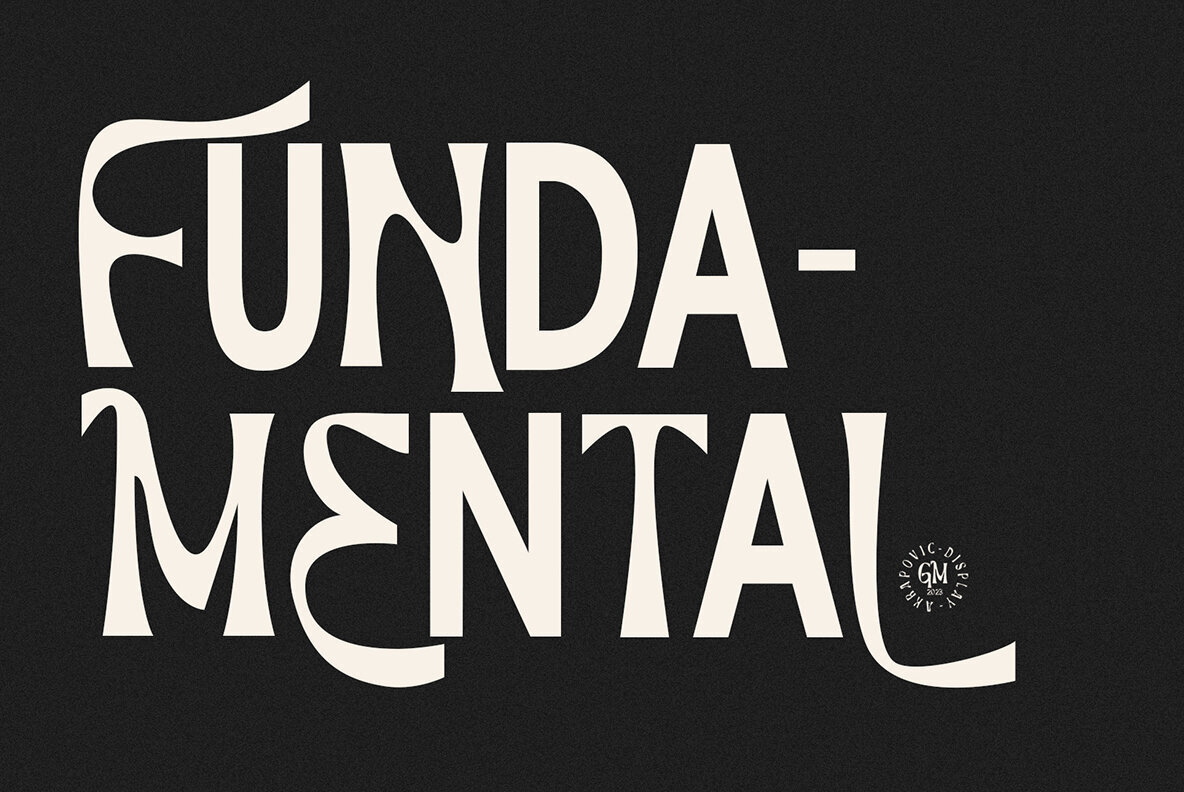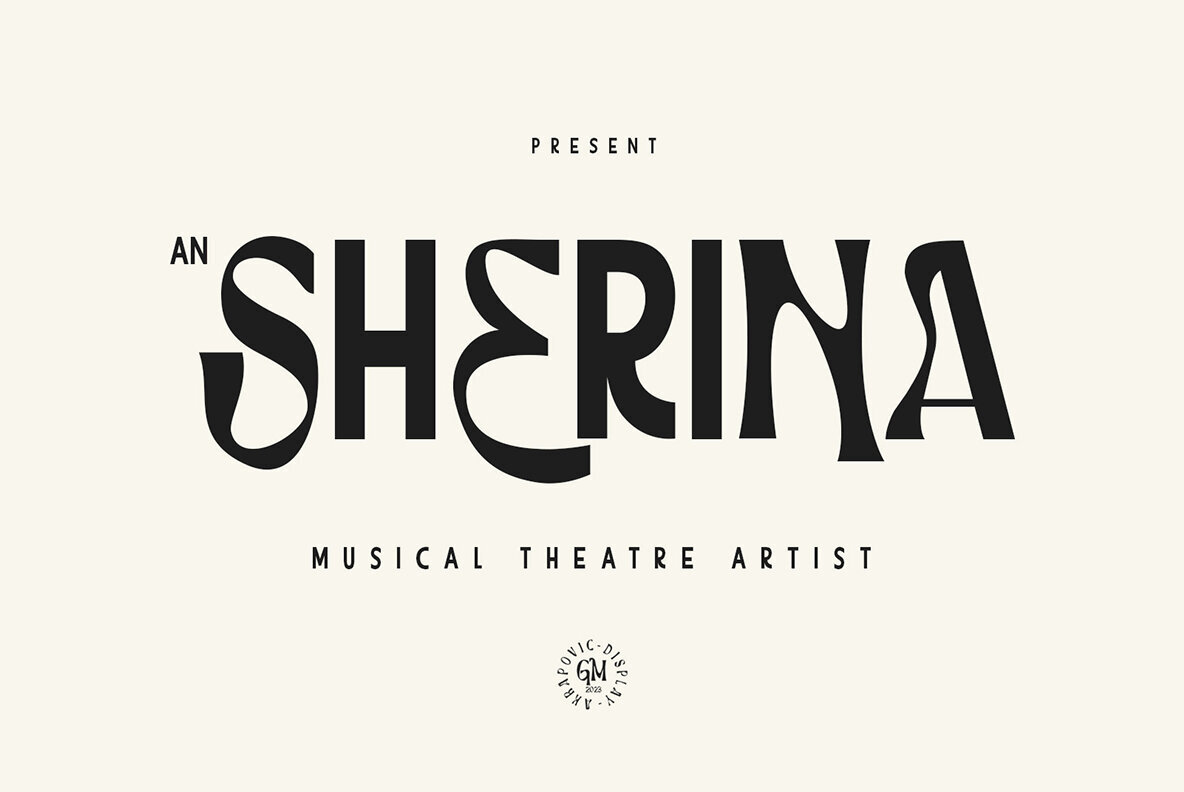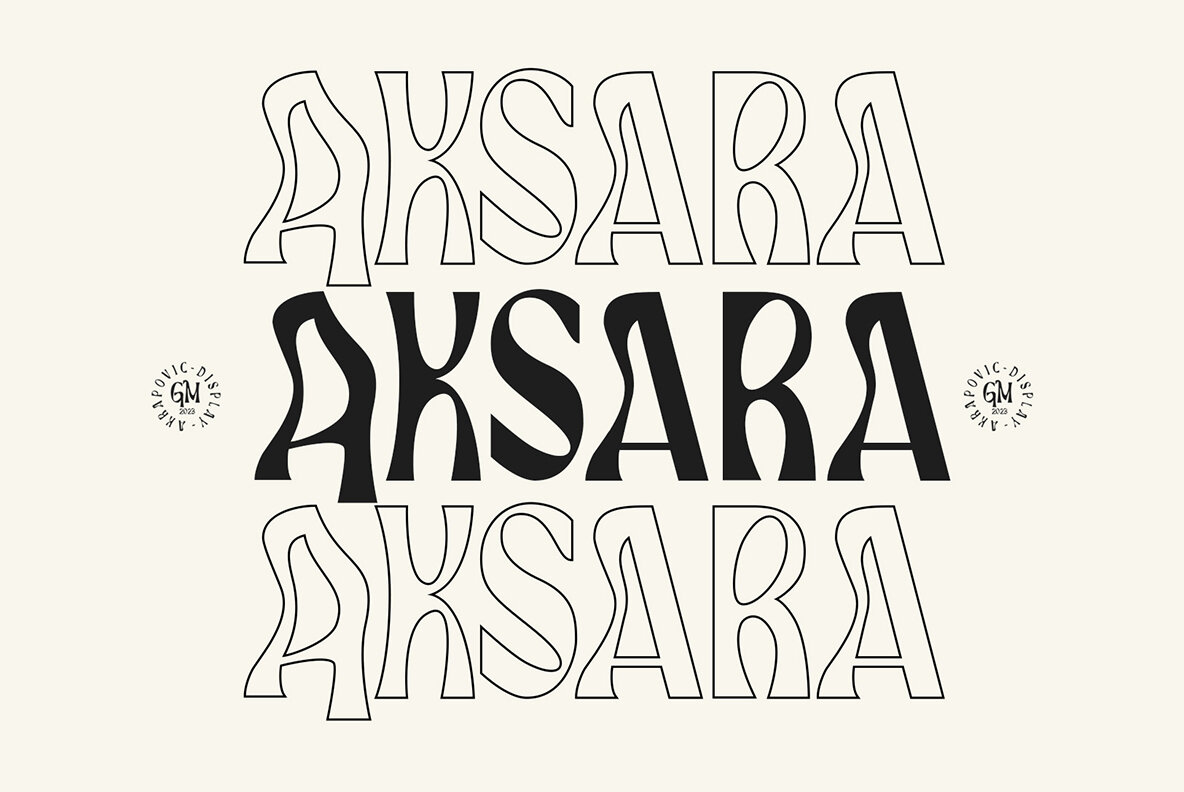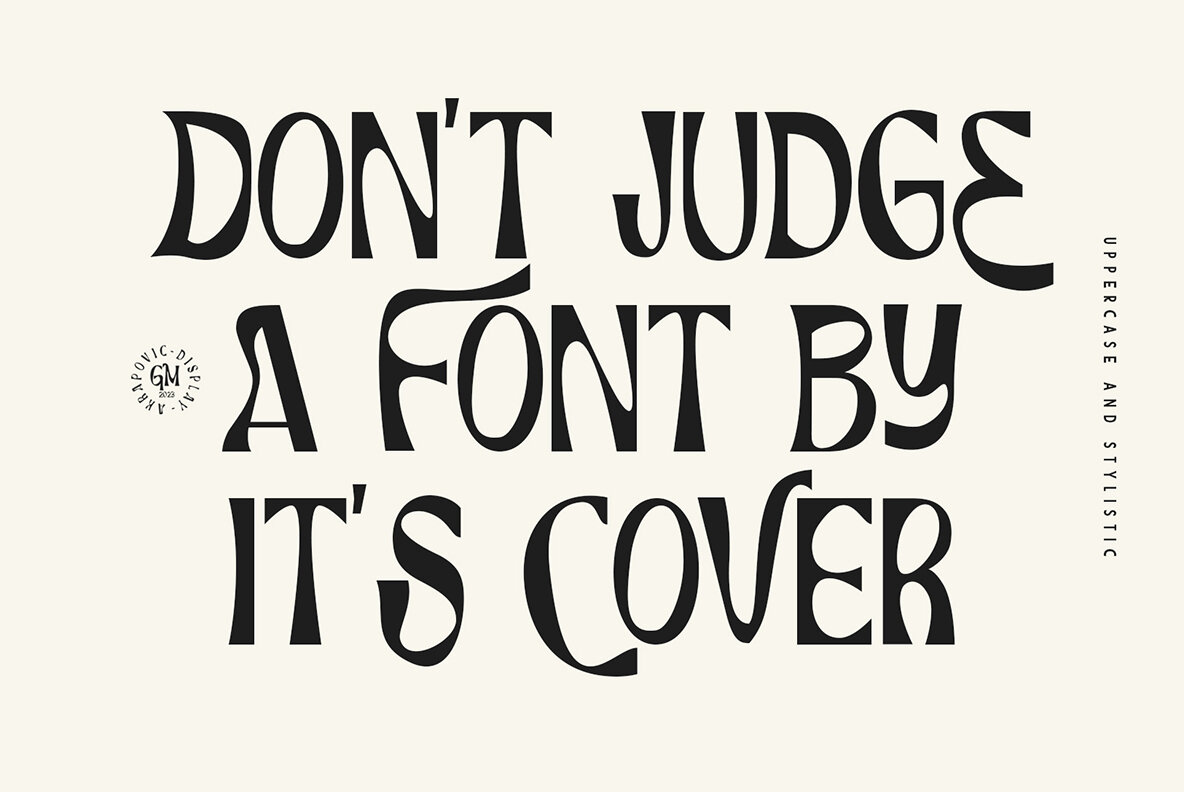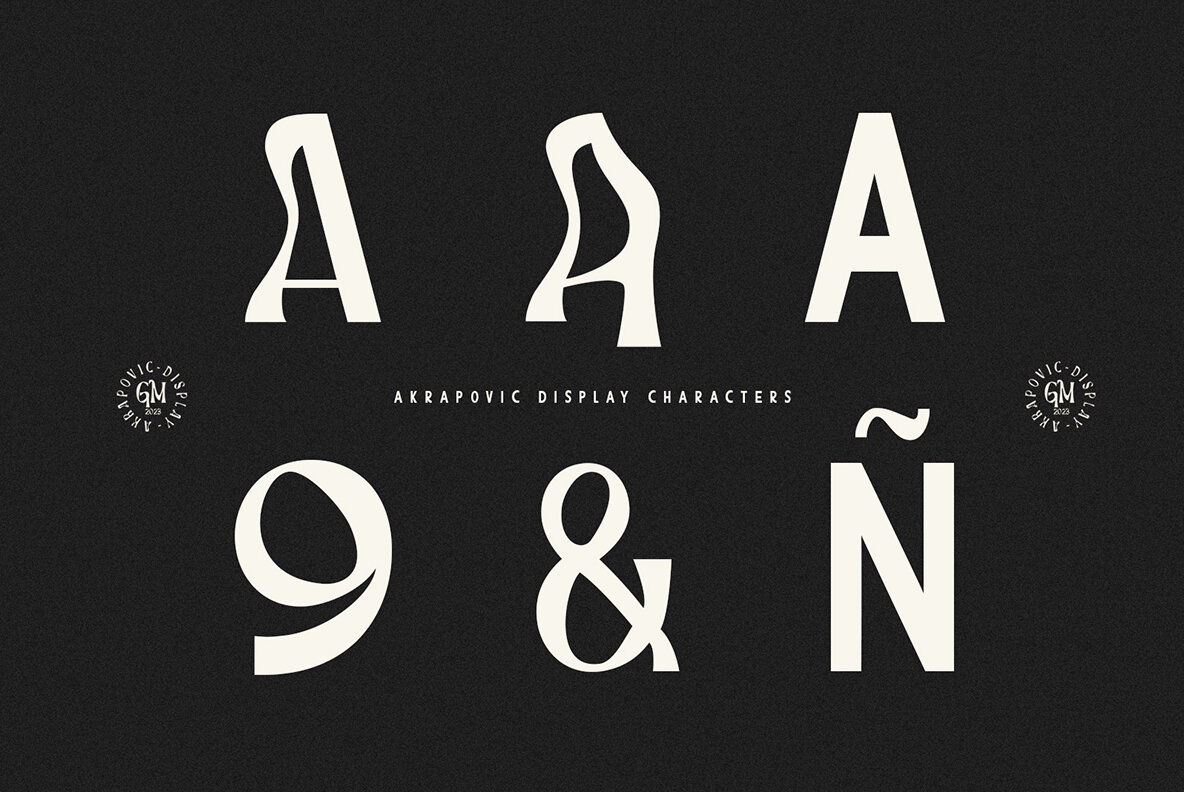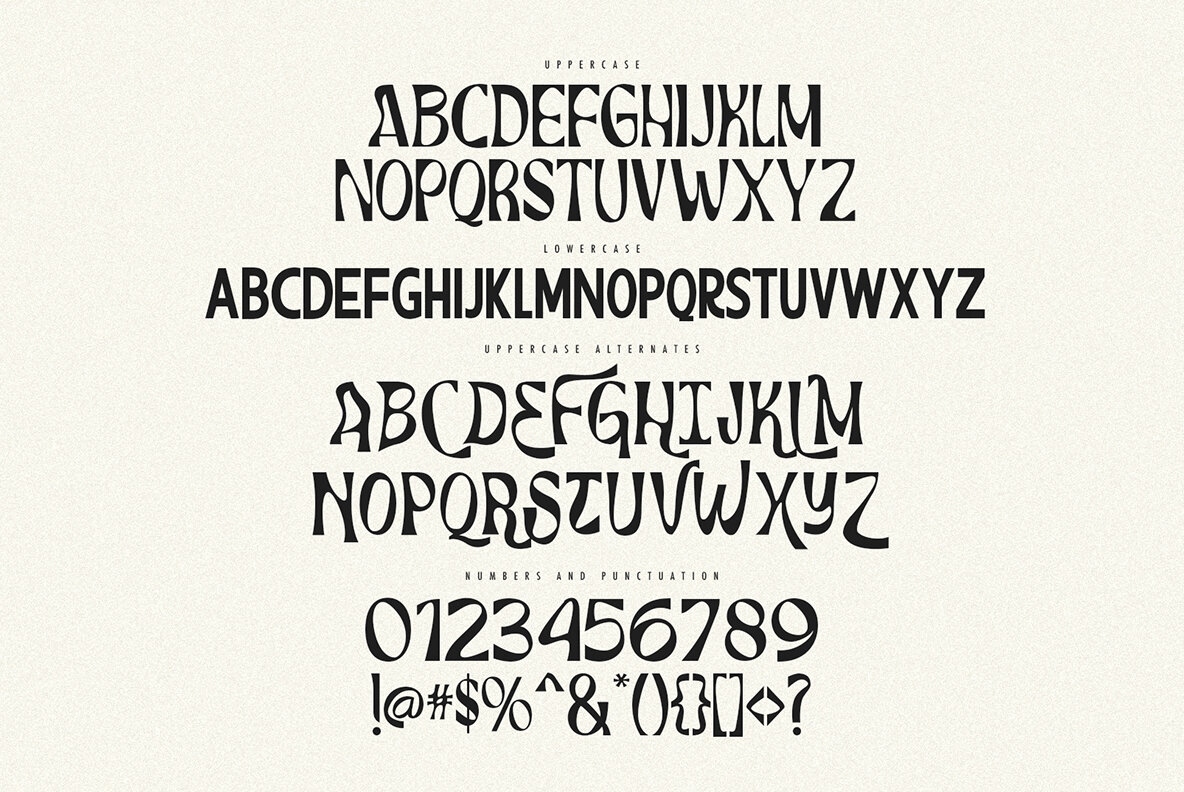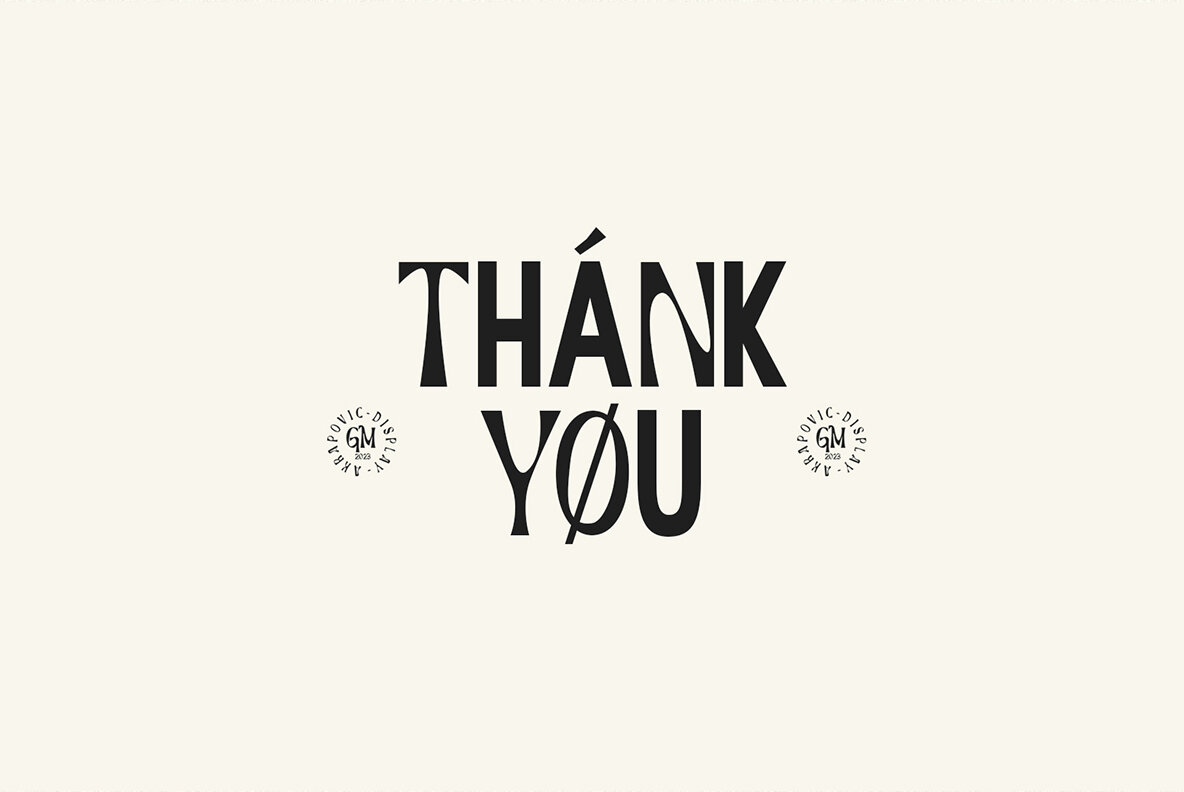
Akrapovic Display Font
Akrapovic Display Regular
Akrapovic Display Font offers a unique twist on traditional sans serif design. With its experimental character alternates, graphic designers can explore creative typography solutions for logos, headlines, posters, branding, and book covers. Each character's stylistic variations provide an opportunity for customized design. Akrapovic Display serves as a robust foundation for any design project, fitting seamlessly into varied aesthetics while offering unique stylistic options.Akrapovic Display: An Experimental Take on Sans Serif